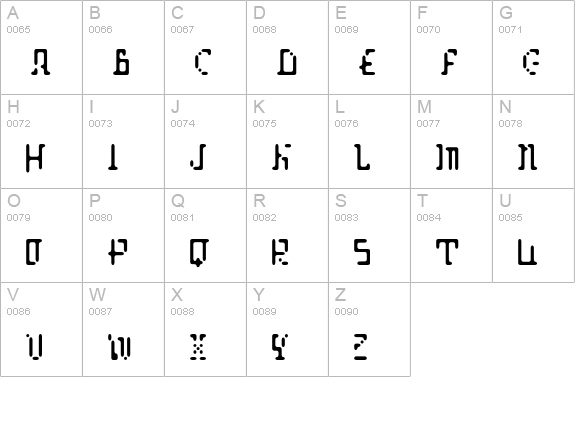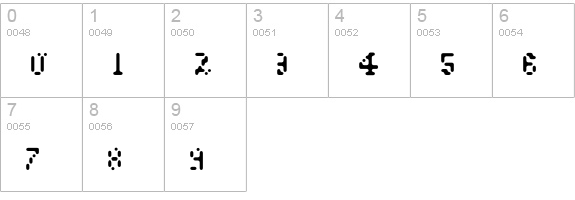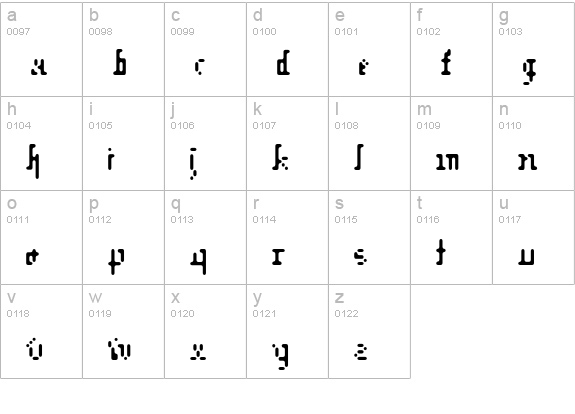
Throw Font Details
Introducing Throw, a captivating font that brings a unique touch to your designs. With its edgy and bold letterforms, Throw is perfect for making a statement that demands attention. Whether you're designing a poster, logo, or website, this font will add an element of dynamism and creativity. But what makes Throw even more remarkable is that it is free! Yes, you read that right. Throw is freely available to download at FontsMarket.com, a trusted source for high-quality fonts. You no longer have to worry about breaking the bank to enhance your designs with this incredible typeface. Not only does Throw offer eye-catching aesthetics, but its versatility is also worth mentioning. From vintage-inspired projects to modern and futuristic designs, this font effortlessly adapts to various styles, making it a must-have for any designer's toolkit. Its strong presence and clean lines create a sense of authority and professionalism, making it ideal for branding and corporate projects. The characters in Throw are meticulously crafted, ensuring legibility and readability in both small and large sizes. Each letter showcases a unique personality, adding a touch of character and originality to your work. Additionally, the font includes a wide range of ligatures and alternate characters, allowing you to experiment and create visually stunning compositions. With Throw, your designs will stand out from the crowd. Its impactful and expressive nature will leave a lasting impression on your audience, leaving them wanting more. So why wait? Download Throw for free today at FontsMarket.com and elevate your designs to new heights. Unleash your creativity and let Throw be the essential tool that sets your work apart.